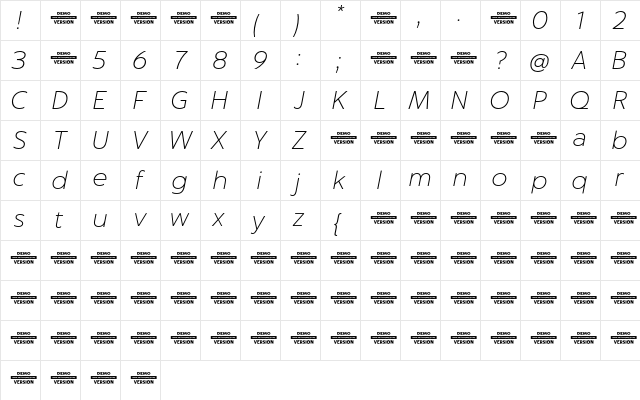
Captura Thin Italic Demo Font Preview
Captura Thin Italic Demo
| Designer | Anita J߲geleit |
Design Context for Captura Typeface
Captura offers clean, dependable letterforms without strong stylistic allegiance, making it a practical choice for designers who need flexibility. The dynamic lean of this cut emphasises speed and emphasis in any layout. The delicate stroke weight brings airiness and refinement to layouts.
Pro Tip: Try Captura for annotation and caption copy alongside an upright companion — the contrast in angle creates a dynamic but ordered typographic system.